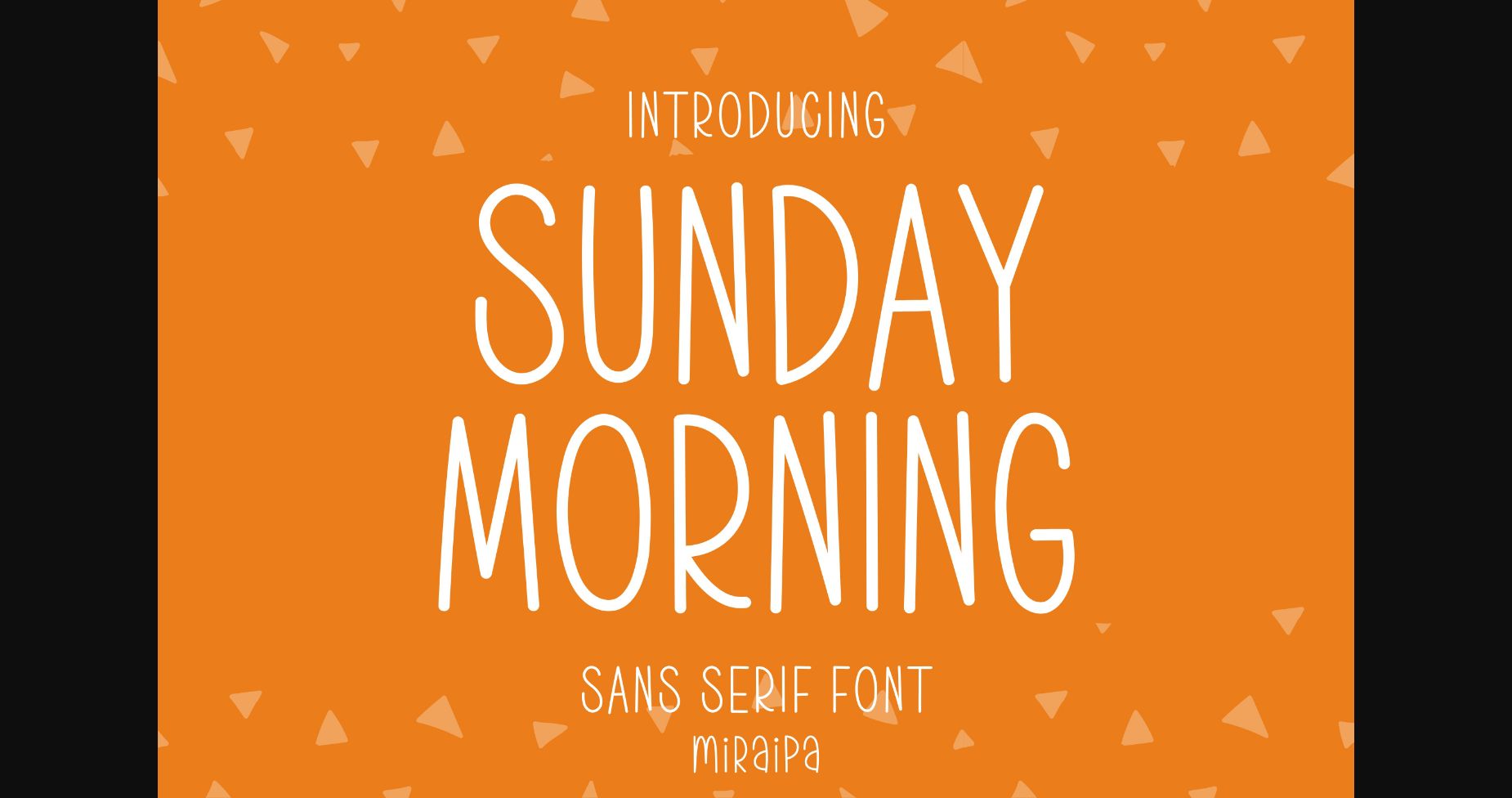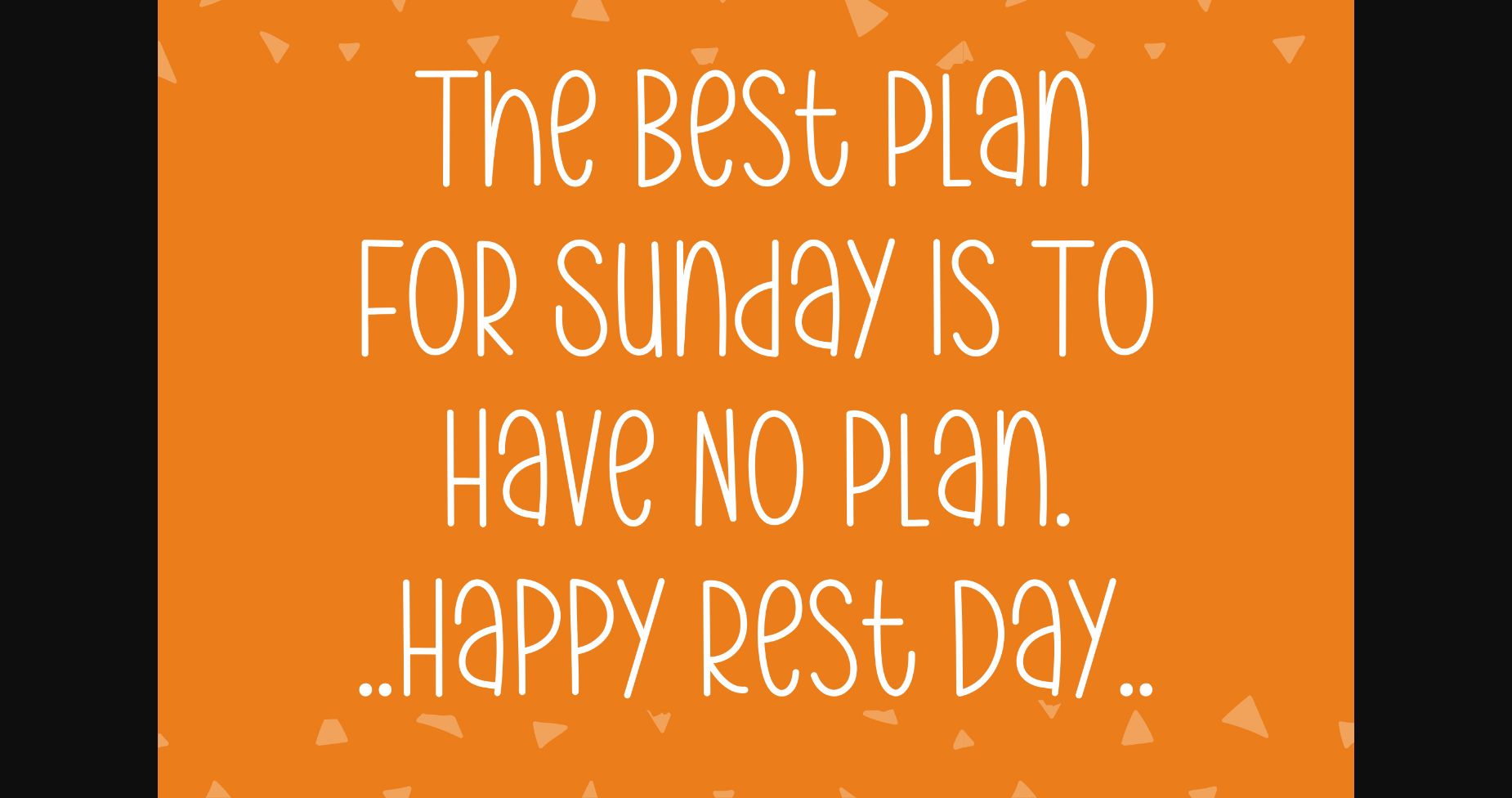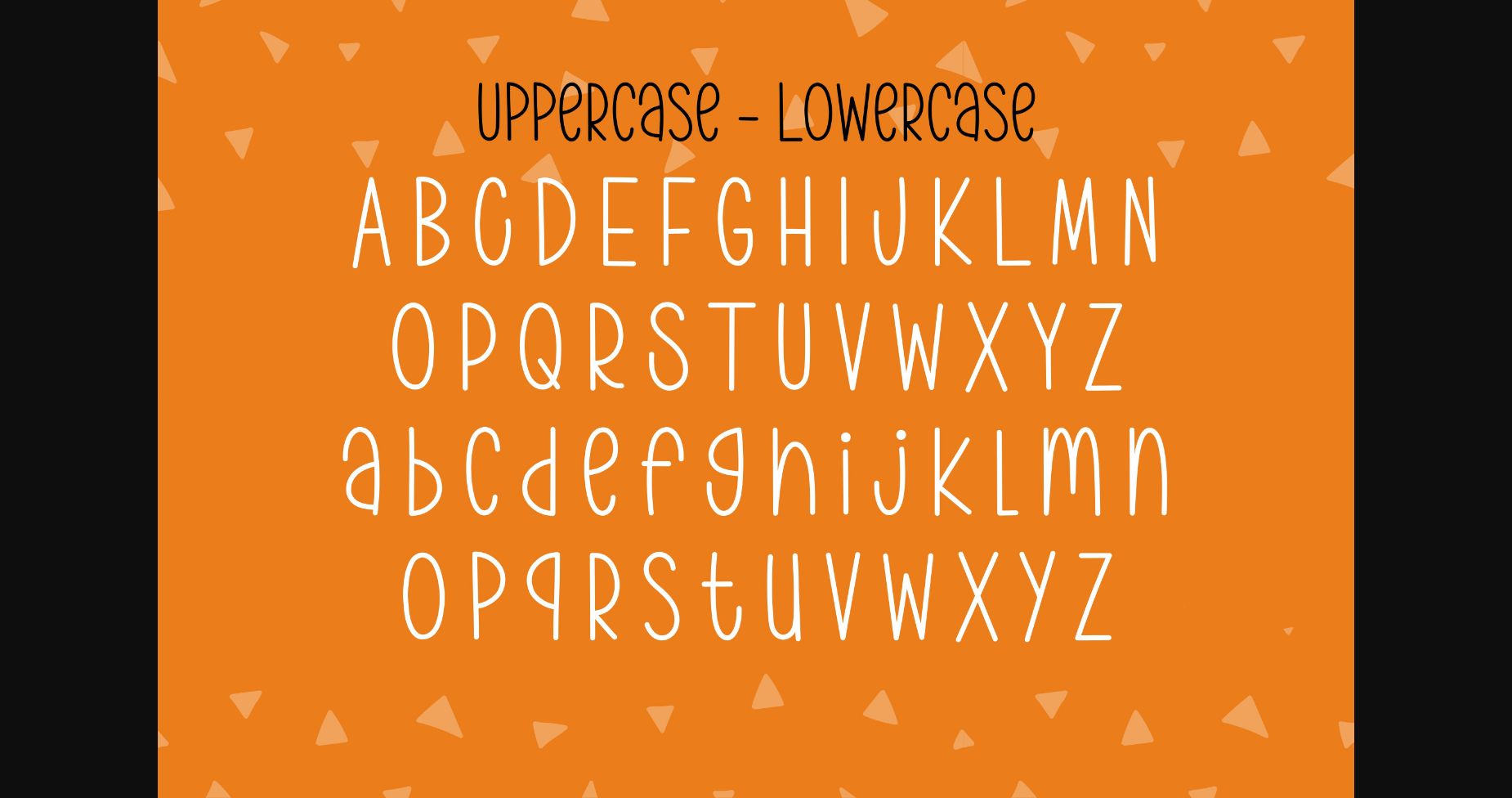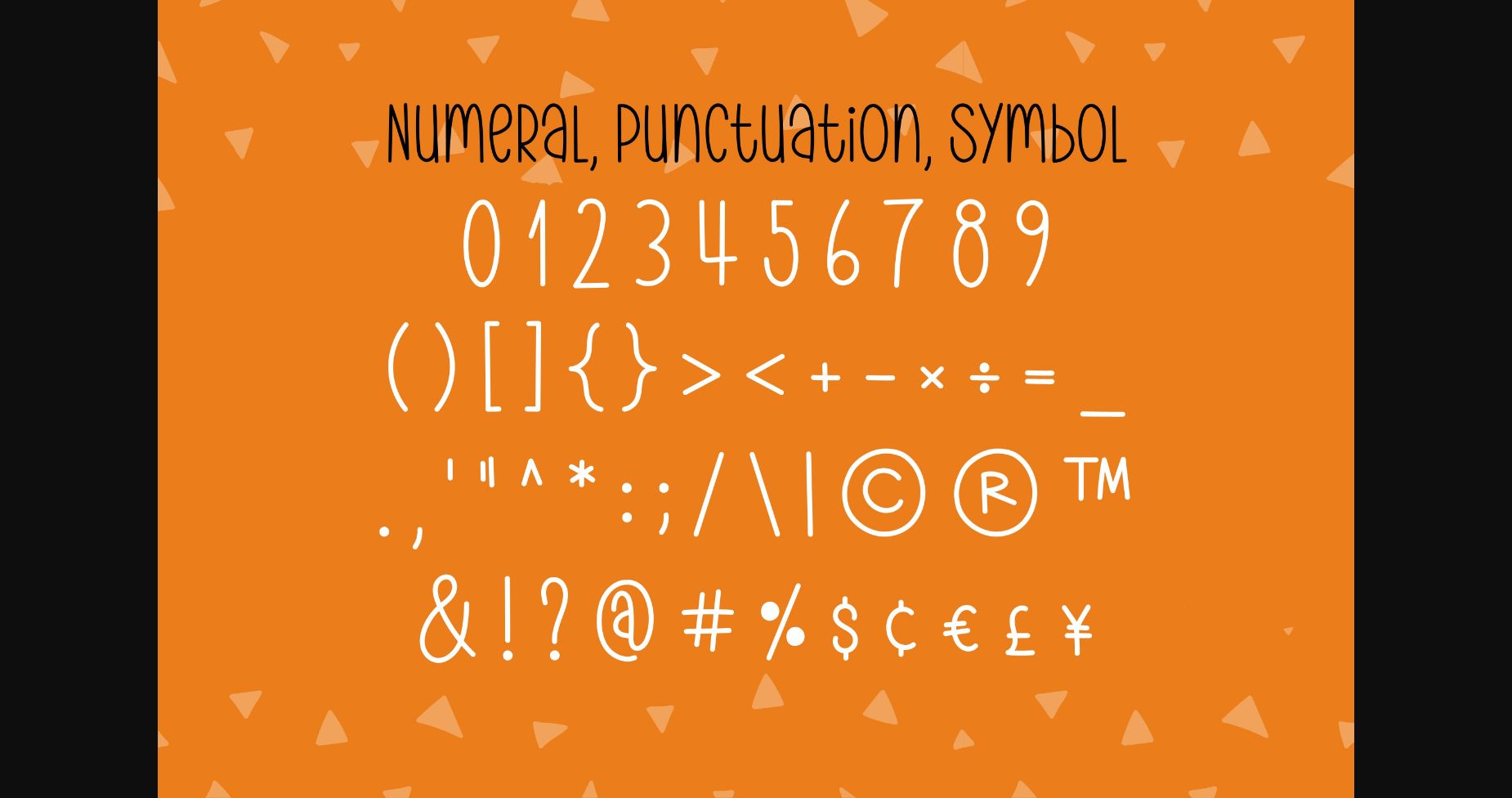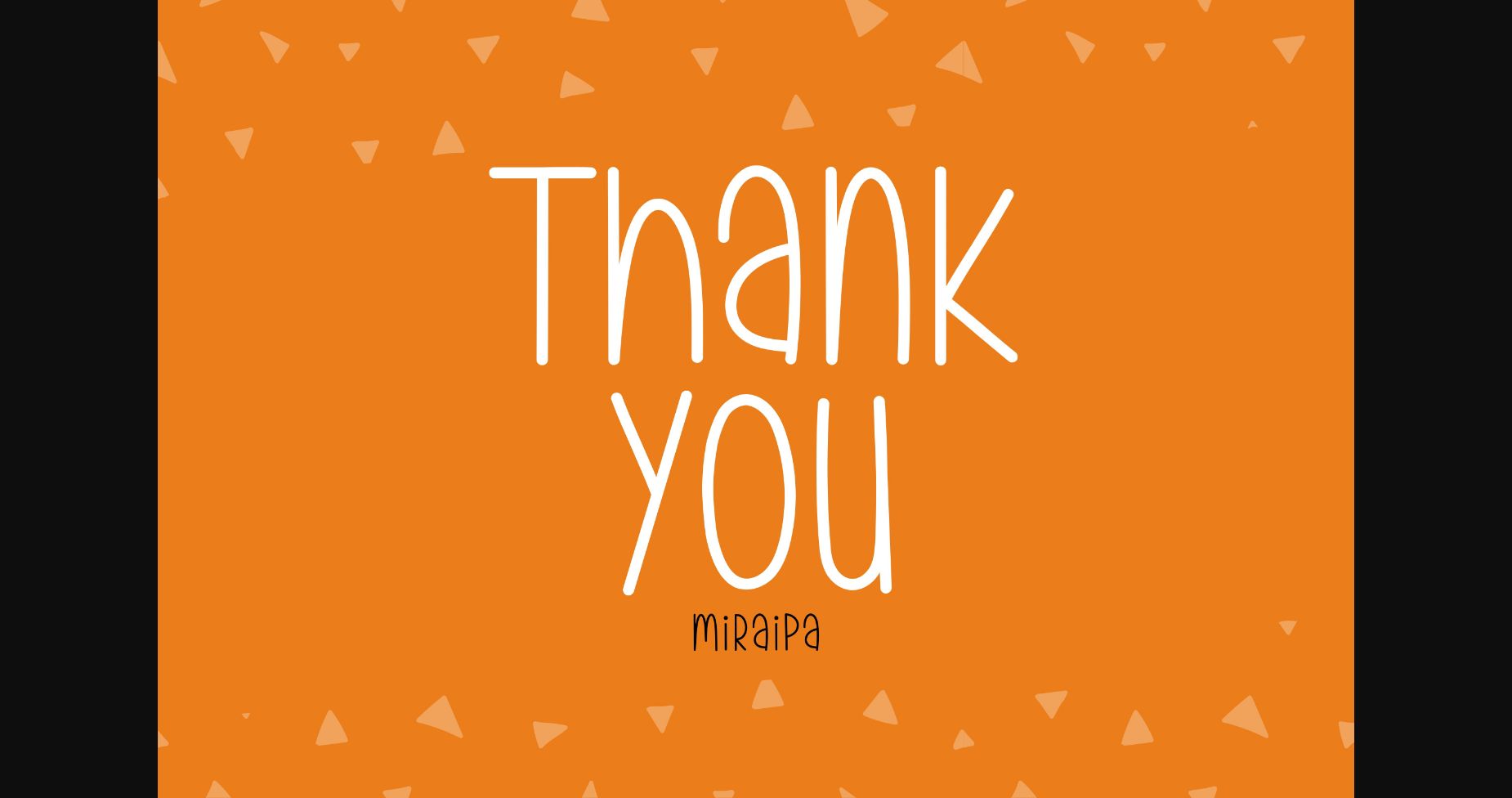
About Sunday Morning Font
Sunday Morning is a cute and friendly sans serif font. Whatever the topic, this font will be a wonderful asset to your font library, as it has the potential to enhance any creation.